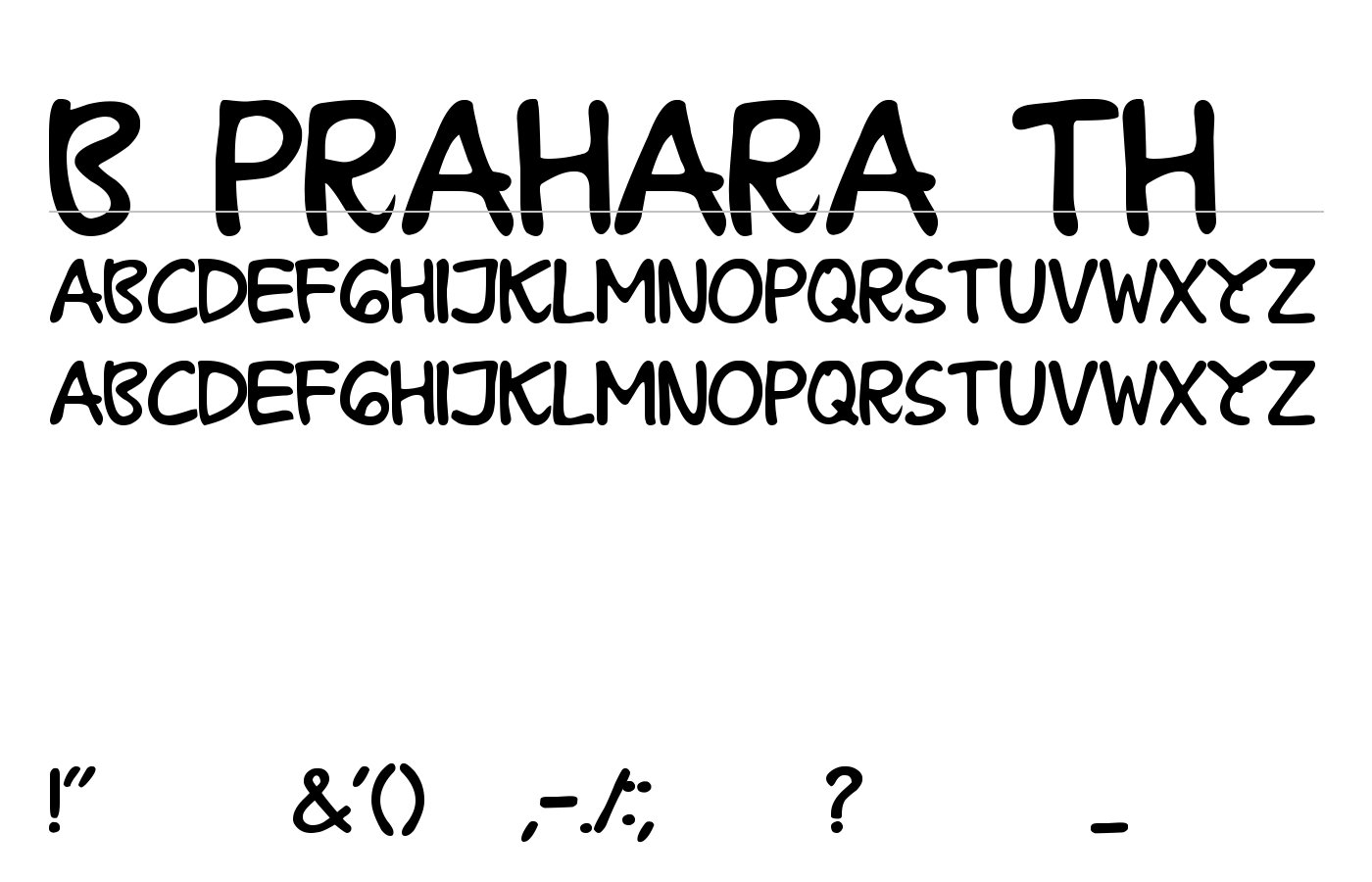
B Prahara TH_Tlsn Tgn is a playful, casual sans serif font with a hand-drawn, slightly irregular style that gives it a friendly and approachable feel. Featuring rounded, soft strokes and a moderate x-height, this font works well for informal designs, children’s materials, or creative projects that seek a warm, personal touch. Its unique letter shapes and lively rhythm make it ideal for headlines, logos, and packaging aiming to convey charm and friendliness.
B Prahara TH_Tlsn Tgn Font
About B Prahara TH_Tlsn Tgn Font